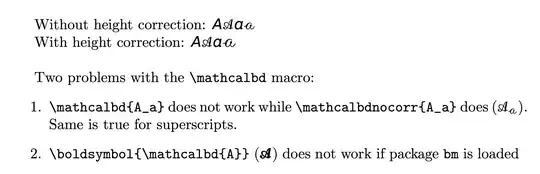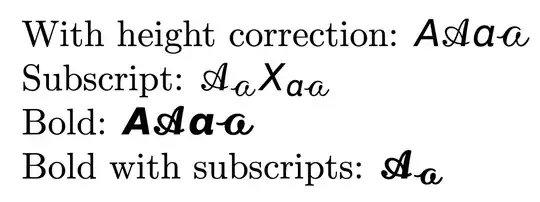
Boondox calligraphic math font and Arev math font do not have the same height for their upper-case letters and their lower-case letters.
Adapting the answer of Fake small caps with XeTeX/fontspec?, I used scalebox to define and correct the heights so that they match for upper-case and lower-case letters. See below the implementation of the new macro \mathcalbd that includes the height correction and the basic macro \mathcalbdnocorr that excludes the correction.
Two problems occur:
- subscripts and superscripts are not supported
- there is a conflict with package
bm